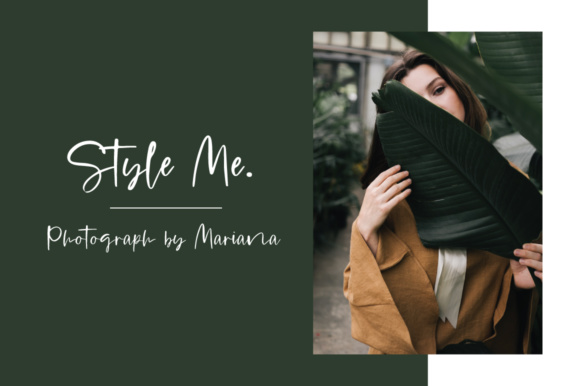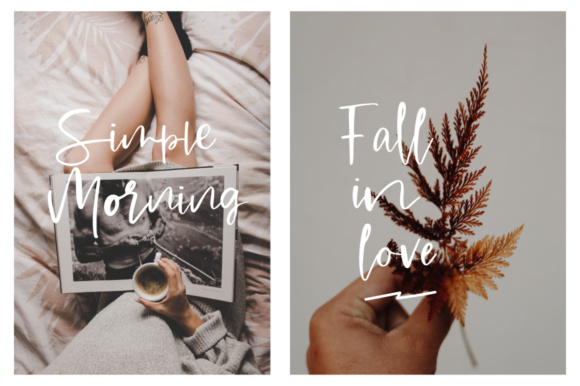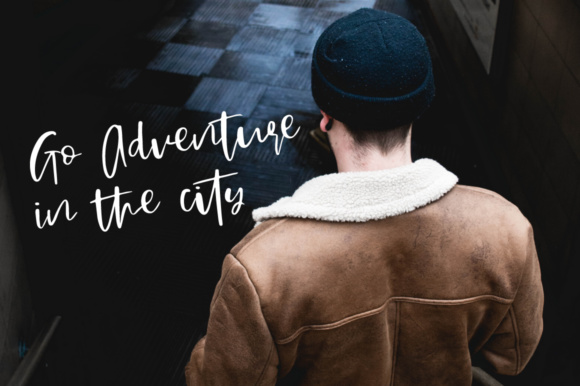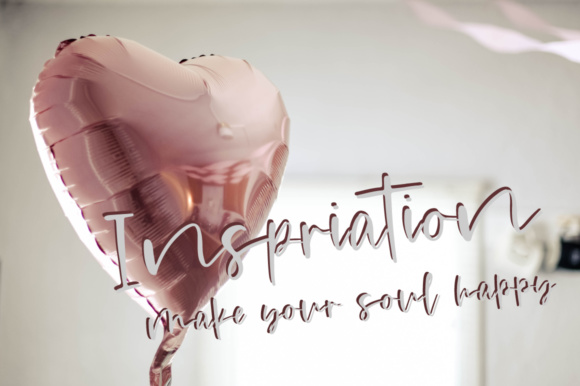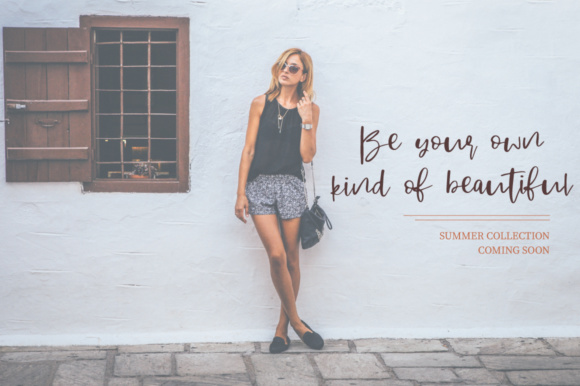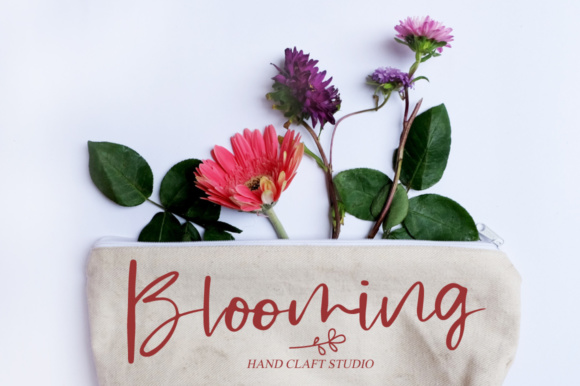
Introducing Halfdressed Font: The Perfect Calligraphic Style for Your Creative Projects
Are you a designer, crafter, or DIY enthusiast looking for a unique and romantic font to elevate your creative projects? Look no further than Halfdressed Font, a beautifully designed calligraphic-style font that is perfect for a wide range of applications. In this article, we’ll take a closer look at the features and benefits of Halfdressed Font, and explore how it can be used to add a touch of elegance and sophistication to your work.
What is Halfdressed Font?
Halfdressed Font is a carefully crafted calligraphic-style font that has been designed to support a broad range of different projects. With its romantic touch, this font is perfect for creating beautiful and eye-catching invites, quotes, posters, apparel, and much more. Whether you’re working on a wedding invitation, a branding project, or a DIY craft, Halfdressed Font is the perfect choice.
Key Features of Halfdressed Font
So, what makes Halfdressed Font so special? Here are just a few of its key features:
- Calligraphic style: Halfdressed Font features a beautiful calligraphic style that adds a touch of elegance and sophistication to any project.
- Romantic touch: With its flowing lines and delicate curves, Halfdressed Font has a romantic touch that is perfect for weddings, anniversaries, and other special occasions.
- Versatile: Halfdressed Font is a versatile font that can be used for a wide range of projects, from invites and quotes to posters and apparel.
Uses for Halfdressed Font
So, what can you use Halfdressed Font for? The possibilities are endless! Here are just a few ideas to get you started:
- Wedding invitations: Create beautiful and elegant wedding invitations that set the tone for your special day.
- Branding projects: Use Halfdressed Font to create a unique and memorable brand identity for your business.
- DIY crafts: Add a touch of elegance to your DIY crafts, such as handmade cards, gift tags, and more.
- Posters and flyers: Create eye-catching posters and flyers that grab attention and communicate your message.
- Apparel: Use Halfdressed Font to create beautiful and unique apparel, such as t-shirts, tote bags, and more.
Why Choose Halfdressed Font?
So, why choose Halfdressed Font over other fonts? Here are just a few reasons:
- Unique and elegant: Halfdressed Font is a unique and elegant font that adds a touch of sophistication to any project.
- High-quality design: Halfdressed Font has been carefully designed and optimized to ensure that it looks great in any context.
In conclusion, Halfdressed Font is a beautiful and versatile calligraphic-style font that is perfect for a wide range of creative projects. With its romantic touch and elegant design, it’s the perfect choice for designers, crafters, and DIY enthusiasts looking to add a touch of sophistication to their work. Whether you’re working on a wedding invitation, a branding project, or a DIY craft, Halfdressed Font is the perfect choice.